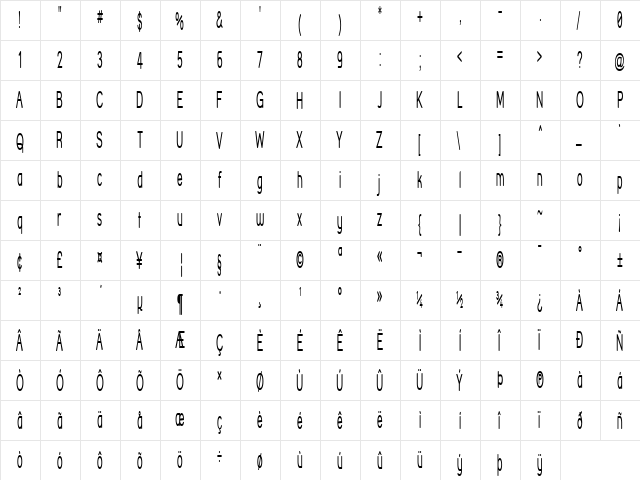
Street Corner Narrower Regular
Design Context for Street Corner Narrower Typeface
Street Corner Narrower offers clean, dependable letterforms without strong stylistic allegiance, making it a practical choice for designers who need flexibility. The condensed width makes it efficient for tight spaces without sacrificing legibility.